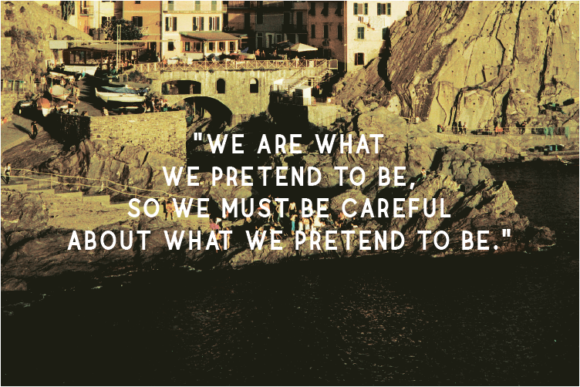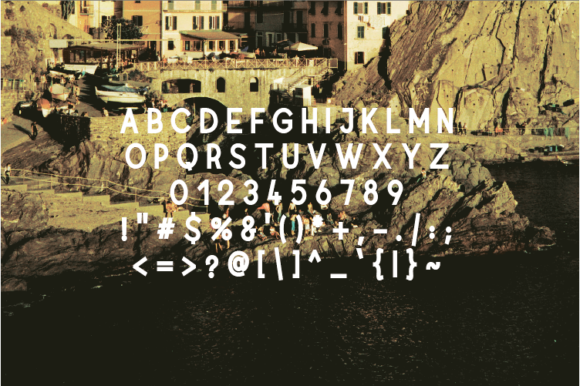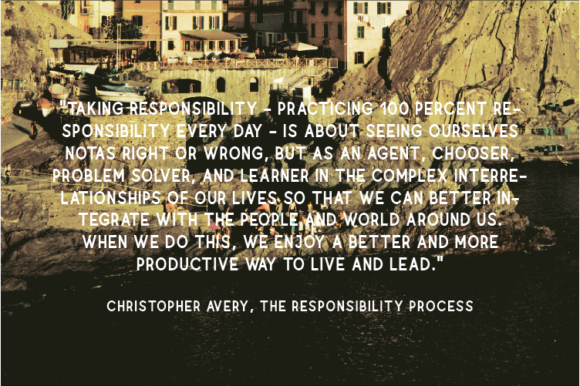
Introduction to Montena Font
Montena is a modern, classy sans serif typeface.
It is suitable for logotype, headline font, in corporate identity, brand identity, apparel industry, poster, music, movie, game, magazine, book, comic, cartoon, YouTube, Instagram, website, or any of your creative design projects .
Key Features of Montena Font